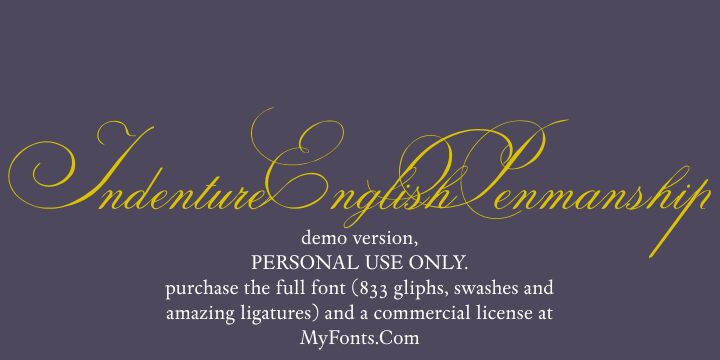
Indenture English Penman by Paulo W of Intellecta Design is a free calligraphic script rooted in the extravagant sweep of formal penmanship, with sharply shaded letters and an unusually airy silhouette. Fine loops and long strokes circle far beyond the main forms.
Its flourishes can echo engraved borders, botanical ornament, and period illustration, making the font a convincing choice for wedding invitations, luxury packaging, and commemorative publishing. Fashion branding and editorial covers also benefit from the same looping contours, since the lettering can become part of an ornamental frame rather than remain separate from the imagery.
Indenture English Penman is based on research into original English and American indenture contracts from the eighteenth and nineteenth centuries, primarily roundhand scripts and paragraph versals in Old English script.
The complete font contains over 800 glyphs, including dozens of versals for each alphabet letter, some versals in Old English style, and additional flourishes. The font’s additional resources can be accessed through the Glyphs resource in Illustrator and other software.